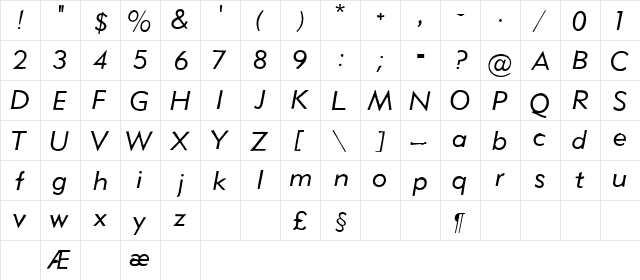
Metro Lite Oblique HPLHS
Design Context for Metro Lite Oblique Typeface
Metro Lite Oblique is a composed and adaptable typeface that performs quietly and consistently across a wide range of design contexts. The slanted form adds forward momentum and visual energy.